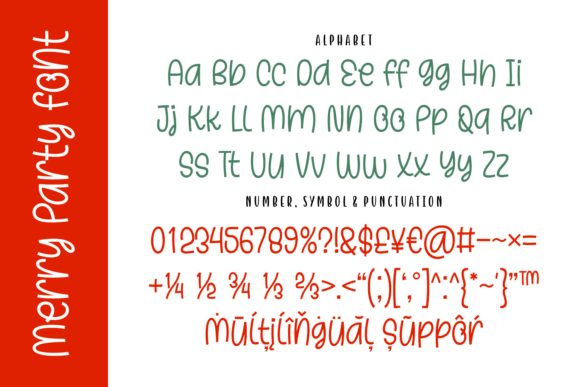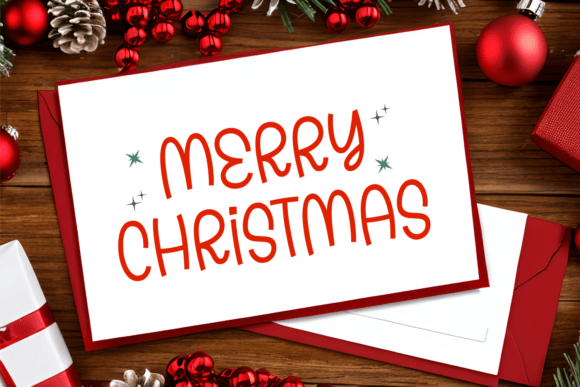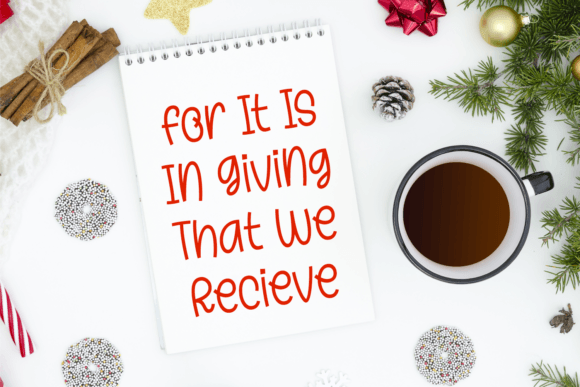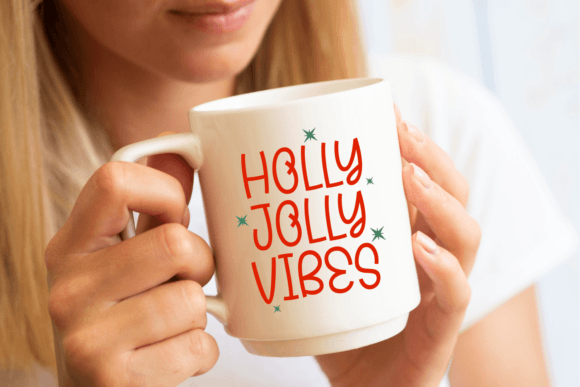
Merry Party Font: Bringing Joy to Your Creative Projects
Have you ever been in the middle of a design project, scrolling through fonts, searching for that perfect one that captures the essence of your idea? I know I have. It’s like stumbling upon a hidden treasure – the right font can elevate your design from good to amazing. And that’s exactly what the Merry Party Font does. This delightful, handwritten font is the perfect companion for any creative project that requires a dash of whimsy and playfulness.
With its charming, flowing strokes and carefree vibe, the Merry Party Font is ideal for invitations, greeting cards, social media graphics, and more. Its high-quality design and transparent background make it a valuable resource for designers who want to add a personal touch to their projects.
Key Features of Merry Party Font
- High-quality, bold, and playful design perfect for creative projects and events.
- Comes with transparent background options, allowing for seamless integration into various design backgrounds.
- Designed with a bold and modern aesthetic, ideal for use in party invitations, social media graphics, and event branding.
- Features a large character set, including uppercase and lowercase letters, numbers, and special characters.
Honest Review: Merry Party Font
I recently stumbled upon the Merry Party Font, a design resource that’s perfect for adding a festive touch to your creative project. One of the things I love about this font is its transparency feature, allowing you to easily change the background to match your design needs.
- ✨ High-quality design that’s perfect for festive and party-themed projects
- ✨ Versatile design that can be used for various creative projects, from invitations to social media graphics
- ⚠️ Limited character set, which may not be ideal for longer text-based projects
- ⚠️ Not suitable for formal or professional designs, as it’s more geared towards festive and playful projects
Overall, the Merry Party Font is a great addition to any designer’s toolkit, offering a fun and creative way to add a festive touch to your projects. While it may have some limitations, its high-quality design and transparent background feature make it a valuable resource for designers working on party-themed or festive projects.
The Merry Party Font is perfect for various creative projects, including party invitations, greeting cards, and social media graphics. Its transparent background feature makes it easy to integrate with other design elements, while its high-quality design ensures crisp and clear text.
To get the most out of the Merry Party Font, use it in conjunction with other design resources, such as graphics and images. Experiment with different font sizes, colors, and styles to create a unique and eye-catching design. The Merry Party Font is a versatile design resource that can add a festive and playful tone to any creative project.
Yes, the Merry Party Font is a high-quality design resource, carefully crafted with attention to detail and a focus on readability. It’s perfect for designers looking for a unique and creative font to add a touch of personality to their projects.